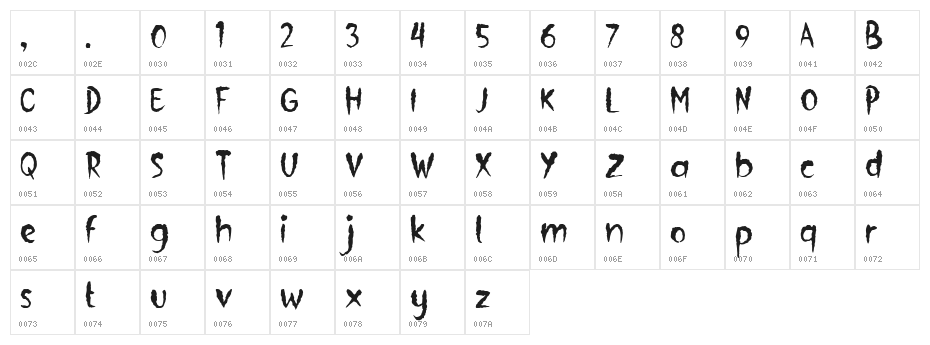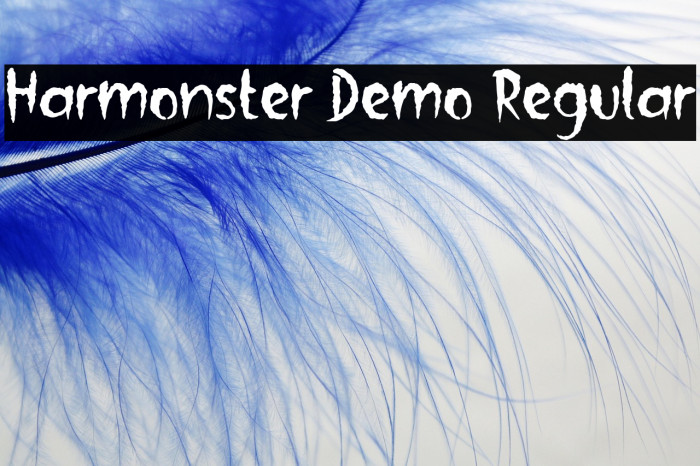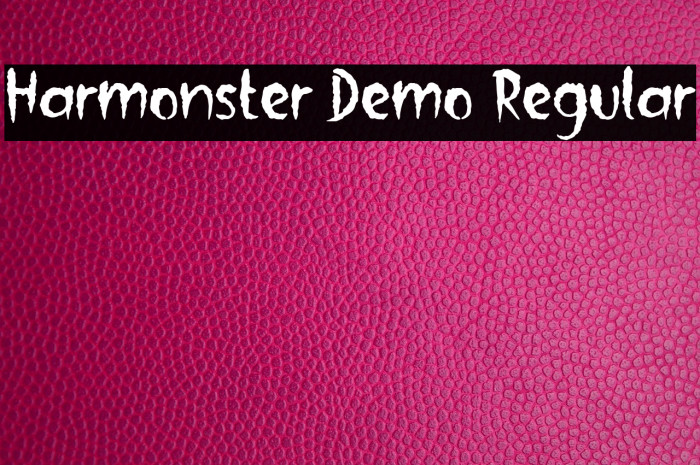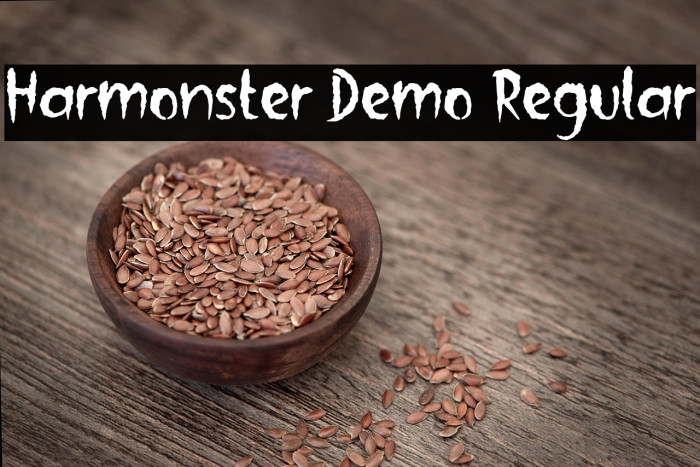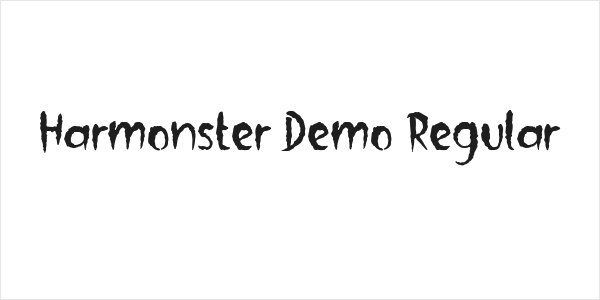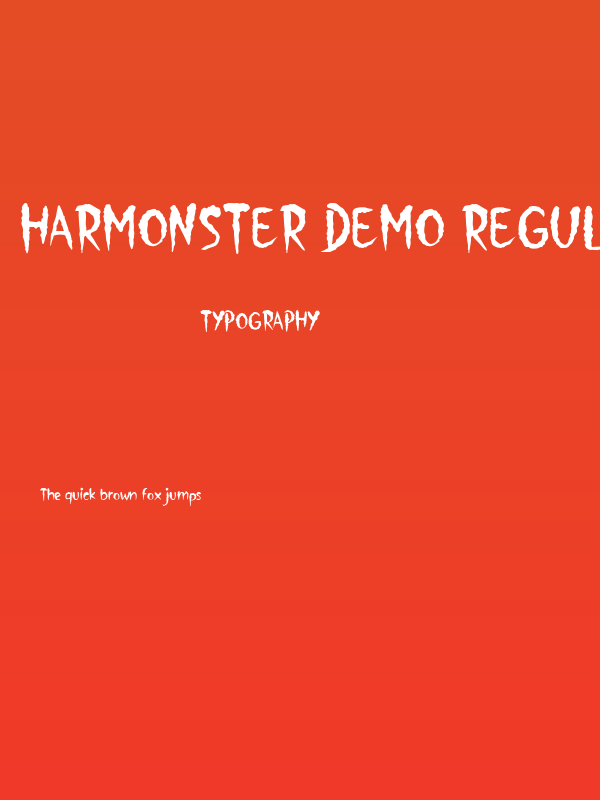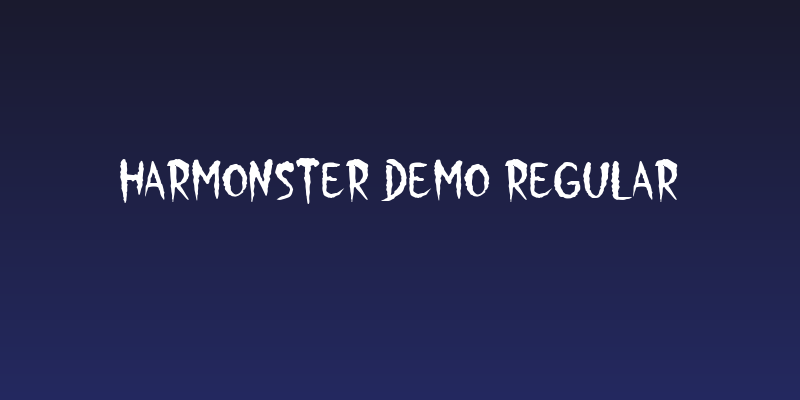
Harmonster Demo Regular Font
Harmonster Demo Regular Description
This font features a unique, jagged style that evokes a sense of horror and mystery. The characters have an irregular, hand-drawn appearance with sharp edges and uneven strokes, reminiscent of claw marks or torn paper. The uppercase and lowercase letters maintain a consistent theme, with each character exhibiting a slightly distressed look. The numbers and special characters follow the same aesthetic, ensuring a cohesive design throughout. This font is ideal for projects that require a dramatic and eerie touch, such as Halloween-themed designs, horror movie posters, or spooky event invitations.
| Proposed Projects | Perfect for Halloween designs, horror movie posters, spooky event invitations, and themed merchandise. |